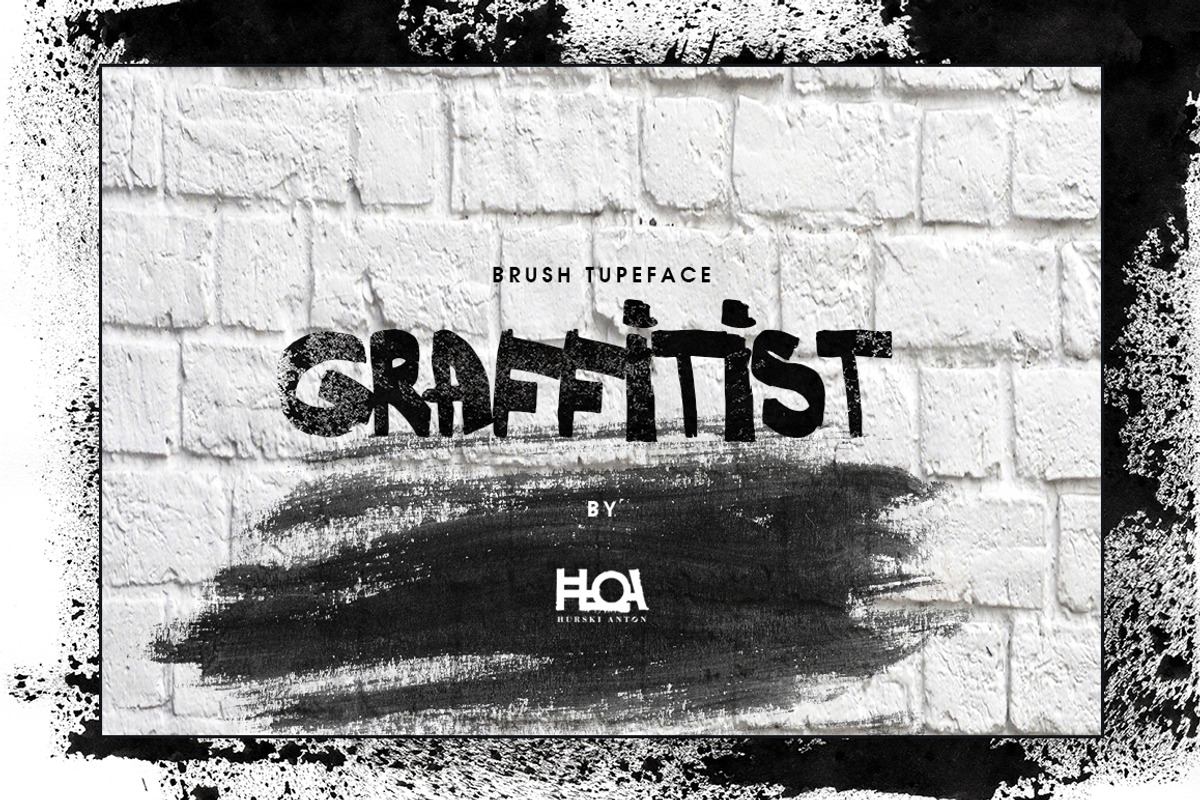
GRAFFITIST- Brush Font Free Download
GRAFFITIST - Brush Font Free Download
GRAFFITIST - Brush Font Free Download is an urban-inspired typeface that captures the raw energy and expressive style of street art. With its bold brush strokes, edgy texture, and rebellious vibe, this font is perfect for graffiti tags, hip-hop album covers, streetwear branding, event posters, and edgy social media graphics. Every letter drips with attitude and authenticity.
Designed to make a statement, GRAFFITIST thrives in bold headlines and large-scale designs. It brings motion and emotion to your visuals, replicating the feel of real spray paint and hand-drawn flair straight from the city walls.